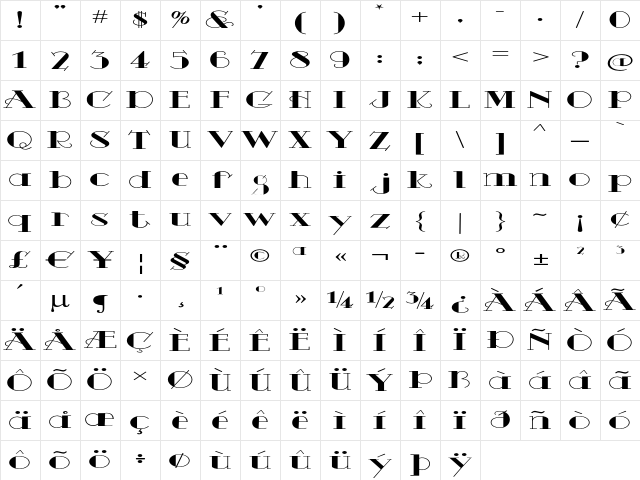
Harker Square Extra-expanded Regular
Style: Extra-expanded Regular
Harker Square Family
Harker Square Extra-expanded Regular
Complete Harker Square Extra-expanded Regular glyph index. Displaying only characters natively supported by Harker Square Extra-expanded Regular font.
Design Context for Harker Square
Harker Square is a composed and adaptable typeface that performs quietly and consistently across a wide range of design contexts.